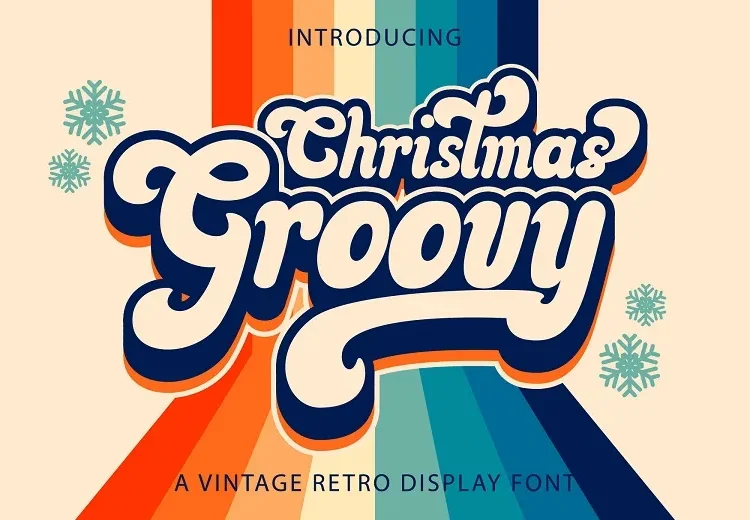
Christmas Groovy Font
Christmas Groovy is a retro display font that brings a nostalgic touch to your design projects. With its vintage style, this font captures the essence of old-school charm, making it an excellent choice for a variety of creative uses.
Key Features of Christmas Groovy:
• Vintage Style: Embraces a retro aesthetic that adds a classic, nostalgic feel to your designs.
• Versatile Applications: Ideal for projects that require a touch of old-school flair, including logos, branding, invitations, and more.
Ideal For:
• Logos & Branding: Gives a unique, retro look to brand identities.
• Invitations & Stationery: Perfect for adding a vintage touch to wedding invites and other printed materials.
• Social Media Posts: Adds character and charm to your digital content.